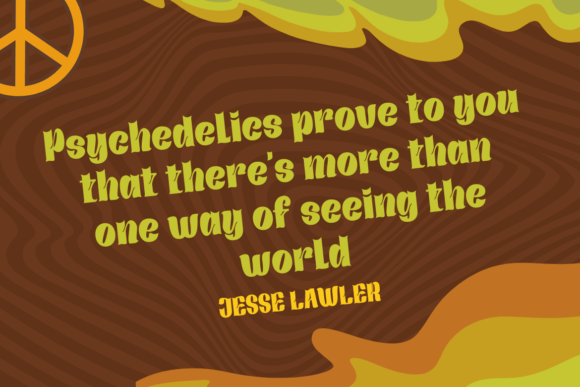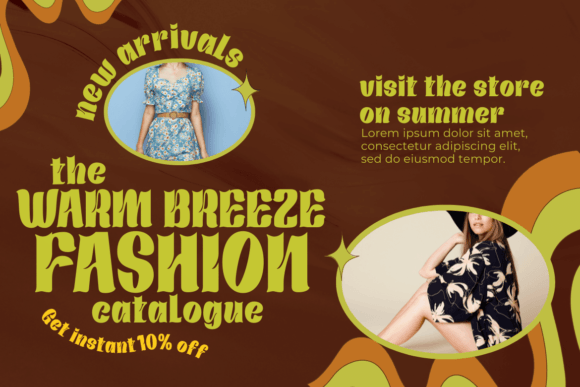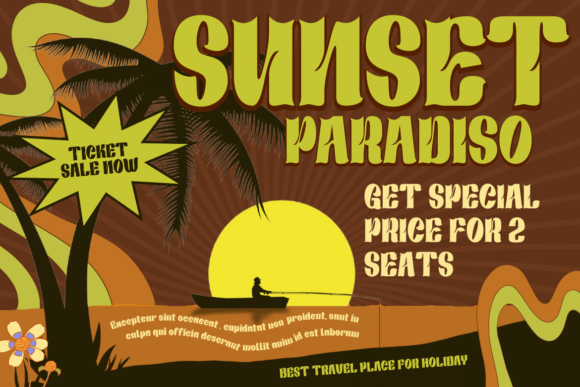
Introduction to Rastiku Font
Rastiku is a psychedelic-inspired display typeface.
It has a fun and bold shape, perfect for all your creative projects that need a retro style This groovy font is ideal for product packaging or even just to add a little flair to your design work.
Rastiku Font offers exceptional quality and versatility, making it a valuable addition to your design toolkit. Whether you’re creating for personal projects or commercial use, Rastiku Font delivers professional results.